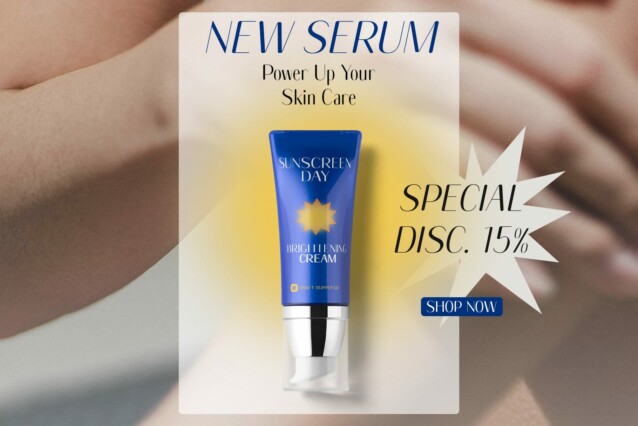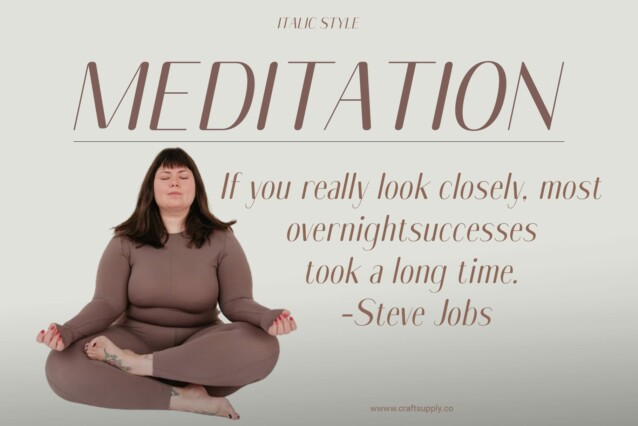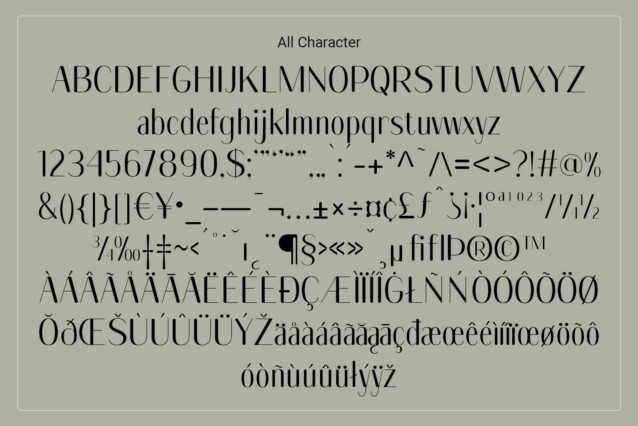
Nestine Rounded Font
Nestine Rounded Font is a sleek grotesque sans serif design that exudes professionalism and sophistication. Its clean lines and balanced proportions make it ideal for a wide range of corporate applications.
High Contrast Typography With its high contrast letterforms, This font demands attention and makes a bold statement. The contrast between thick and thin strokes adds visual interest and ensures readability in various contexts.